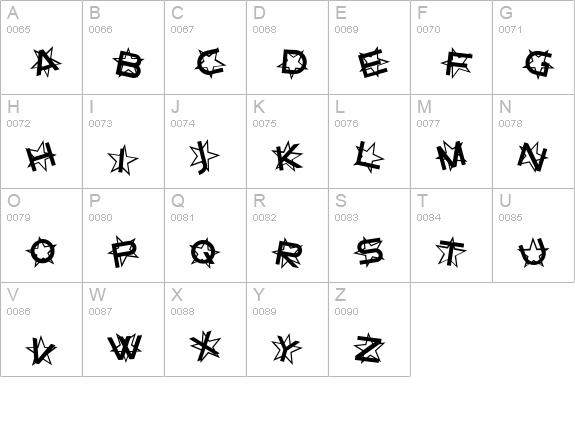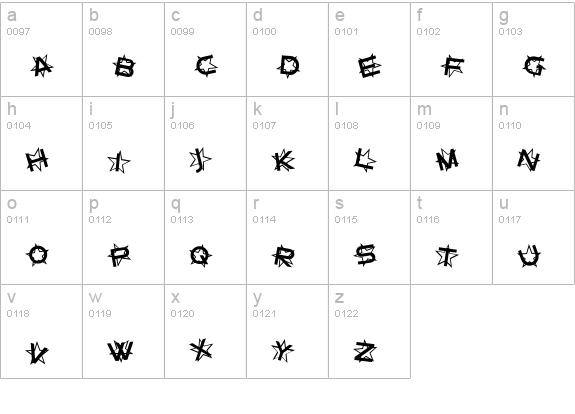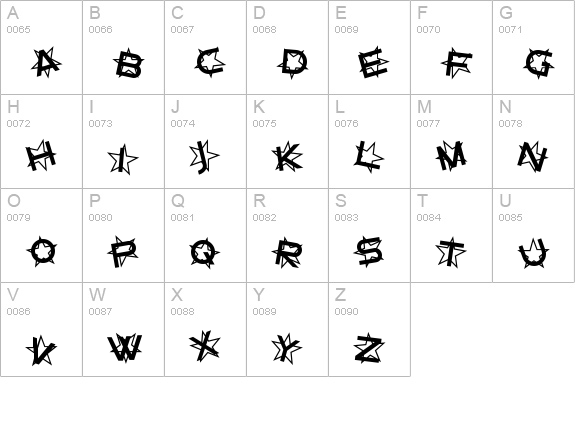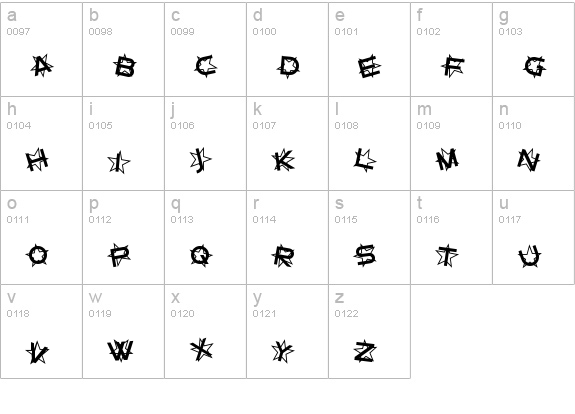
SF Star Dust Font Details
Introducing SF Star Dust, a captivating and versatile font that will transport your designs to a whole new dimension. With its futuristic and celestial aesthetic, SF Star Dust is the perfect choice for any project that requires a touch of magic and wonder. This font boasts a unique blend of sharp edges and smooth curves, giving it a modern and stylish look that is sure to catch the eye. Its bold and confident letterforms exude a sense of strength and sophistication, making SF Star Dust suitable for a wide range of applications, from logos and branding to headlines and posters. But what truly sets SF Star Dust apart is its availability as a free download at FontsMarket.com. Yes, you read that right - this captivating font is freely accessible to all, allowing designers and enthusiasts alike to unleash their creativity without any financial constraints. Whether you're a professional graphic designer looking to elevate your work or an aspiring artist on a tight budget, SF Star Dust is the perfect solution. Its freely available download not only makes it accessible to all, but also opens up a world of possibilities for endless design opportunities. So why wait? Visit FontsMarket.com today and experience the magic of SF Star Dust for yourself. Download it for free and let your imagination take flight as you explore the limitless potential of this extraordinary font. Let SF Star Dust be the guiding light in your design journey, leading you towards breathtaking and awe-inspiring creations.